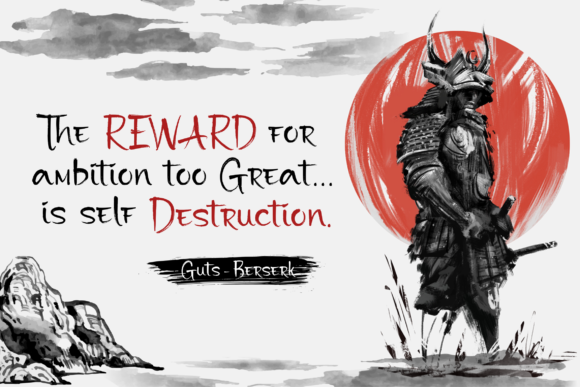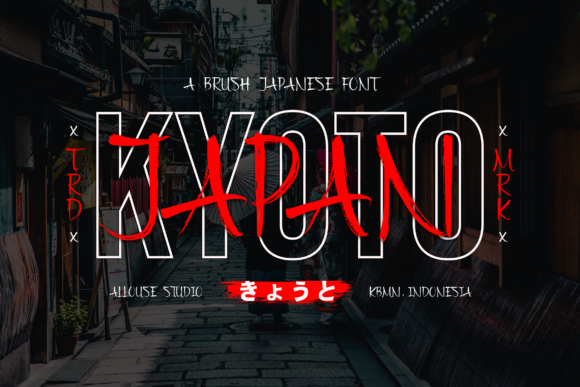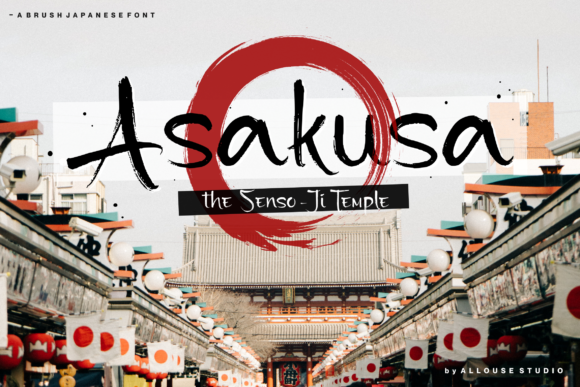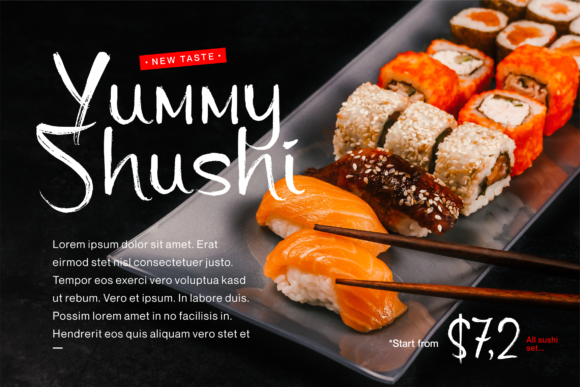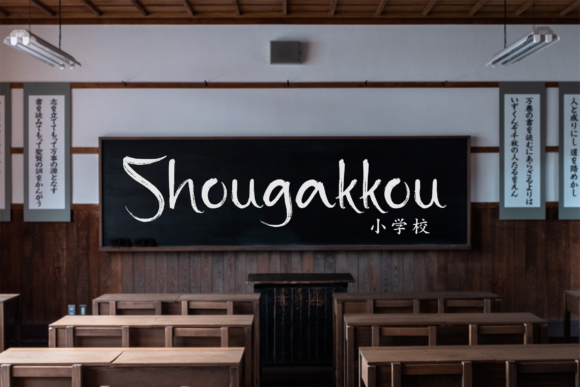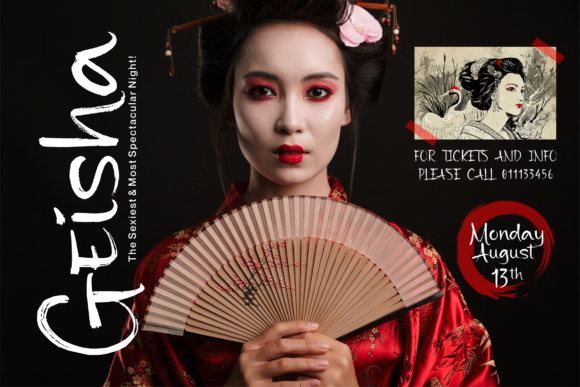
Aokahori Font: A Beautiful Brush Japanese Font for Creative Projects
Are you a designer or crafter looking for a unique and elegant font to elevate your creative projects? Look no further than Aokahori, a stunning brush Japanese font that is perfect for a variety of applications. In this article, we’ll explore the features and benefits of Aokahori, and show you how to use it to take your designs to the next level.
What is Aokahori Font?
Aokahori is a traditional Japanese brush font that is characterized by its beautiful, hand-painted strokes. The font is designed to mimic the look and feel of traditional Japanese calligraphy, with a modern twist. Aokahori is a versatile font that can be used for a wide range of creative projects, from product packaging and branding to magazines, social media, and weddings.
Key Features of Aokahori Font
- Unique and elegant design: Aokahori features beautiful, hand-painted strokes that give it a unique and elegant look.
- Traditional Japanese feel: The font is inspired by traditional Japanese calligraphy, making it perfect for projects that require a touch of cultural authenticity.
- Versatile: Aokahori can be used for a wide range of creative projects, from product packaging and branding to magazines, social media, and weddings.
Aokahori is perfect for a variety of creative projects, including:
- Product packaging: Add a touch of elegance and sophistication to your product packaging with Aokahori.
- Branding projects: Use Aokahori to create a unique and memorable brand identity that stands out from the crowd.
- Magazines and publications: Aokahori is perfect for magazine and publication designs that require a touch of elegance and sophistication.
- Social media: Use Aokahori to create eye-catching social media graphics that grab attention and drive engagement.
- Weddings and events: Aokahori is a beautiful font for wedding and event designs, adding a touch of romance and elegance to your creations.
Here are a few tips for using Aokahori:
- Experiment with different sizes and colors: Aokahori looks great in a variety of sizes and colors, so don’t be afraid to experiment and find the look that works best for your project.
- Use it with a background: Aokahori looks great used with a background image or texture, adding depth and interest to your design.
- Combine it with other fonts: Aokahori can be paired with other fonts to create a unique and interesting look.
Aokahori is a beautiful and versatile brush Japanese font that is perfect for a wide range of creative projects. With its unique and elegant design, traditional Japanese feel, and ease of use, Aokahori is a great choice for designers and crafters looking to add a touch of elegance and sophistication to their designs. Whether you’re working on a product packaging project, branding project, magazine, social media graphics, or wedding design, Aokahori is a great font to consider.